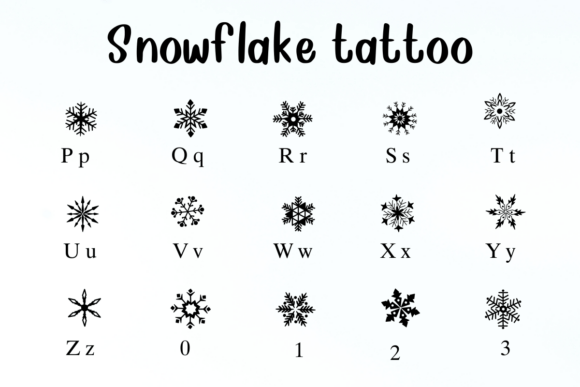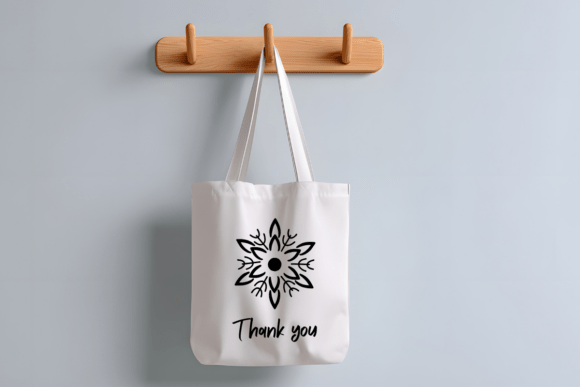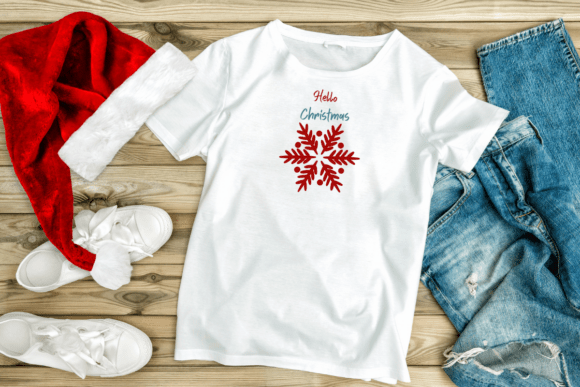
Snowflake Tattoo Font
Snowflake tattoo decorative dingbat font captures the delicate beauty of snowflakes with striking precision, offering an elegant collection of intricate, high-contrast winter-inspired symbols. Each snowflake design is crafted with sharp, clean lines and balanced symmetry, creating a refined yet playful tone that stands out in any creative project.
Perfect for holiday cards, festive branding, packaging, digital art, or tattoos, this versatile font adapts seamlessly to both minimalist and elaborate designs. Its crisp forms and timeless charm make it an essential tool for designers seeking to infuse their work with seasonal elegance and a touch of frosty magic.